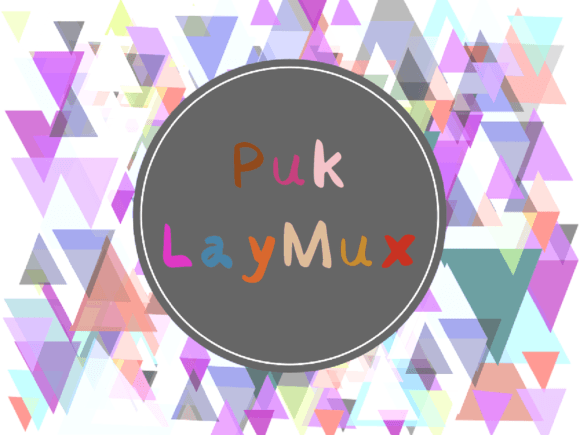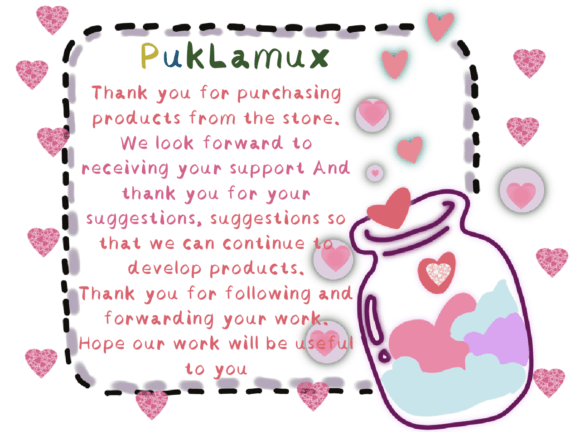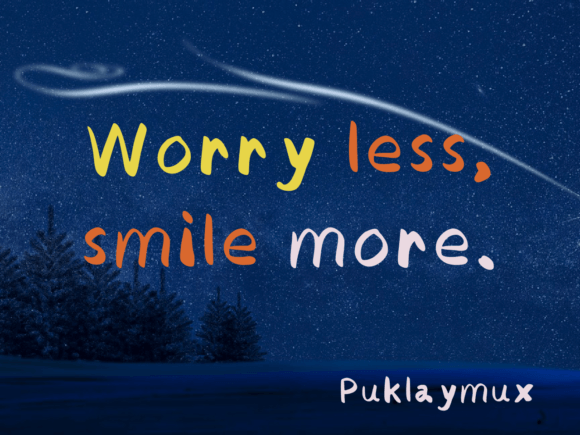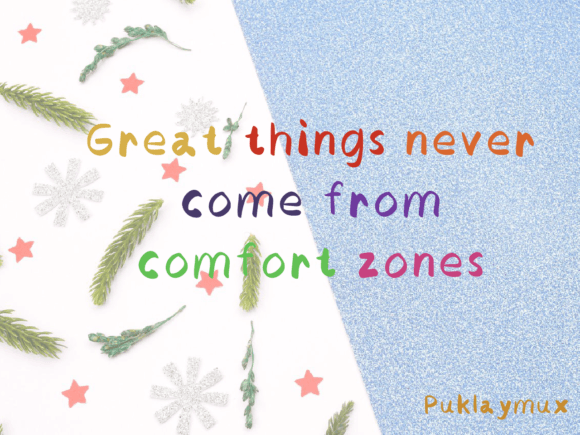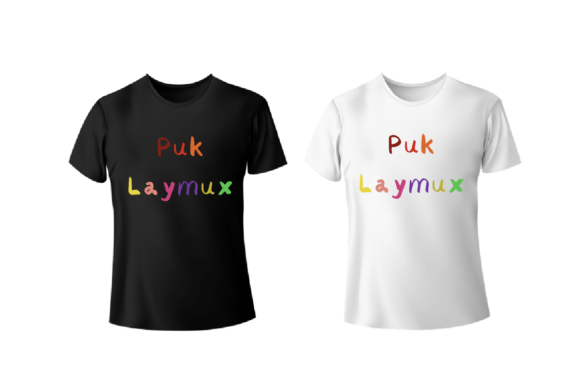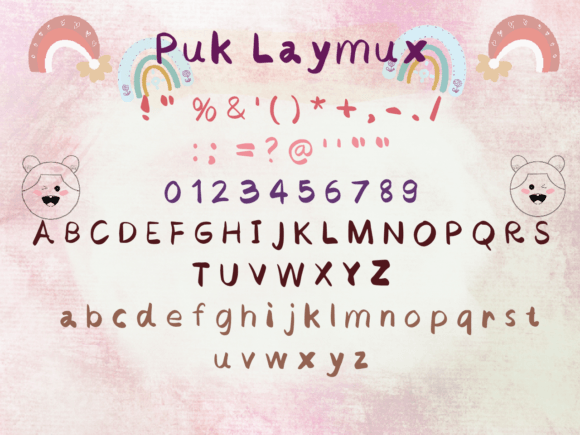
Puklaymux Font
About Puklaymux Font
Introducing Puklaymux, a handwritten font designed with the expressive strokes of a marker pen. This font brings a distinctive and joyful touch to your creative projects, making it ideal for use in letters, greeting card designs, wedding cards, and more. Add Puklaymux to your collection and make your creative endeavors stand out with its unique and lively aesthetic!
What sets Puklaymux apart is its handcrafted and joyful nature. The marker pen style adds an authentic and dynamic feel, making it perfect for projects that aim to convey a sense of warmth and creativity. Imagine Puklaymux gracing your letters, where it brings a personal and vibrant touch to your messages. Picture it on greeting cards or wedding invitations, creating a lively and celebratory atmosphere.
The expressive strokes of Puklaymux make it a versatile font that adds a touch of character to various design applications. Its handwritten charm adds a sense of individuality to your projects, making them look different and engaging. Whether used in digital or print media, Puklaymux contributes to a joyful and distinctive visual language.
Visualize Puklaymux transforming your creative projects, making them stand out with a joyful and lively flair. Envision it on invitations or cards, where its expressive style becomes a key element in creating a memorable and joyful experience for the recipients. Its uniqueness makes it a font that brings a sense of creativity and fun to your designs.
In conclusion, Puklaymux is more than just a font; it’s a joyful and expressive tool that adds character to your projects. Download it today and experience how it transforms your letters, cards, and more into expressions of warmth and creativity. Make Puklaymux a delightful addition to your font collection, and let it be the key to making your creative projects look different and engaging!